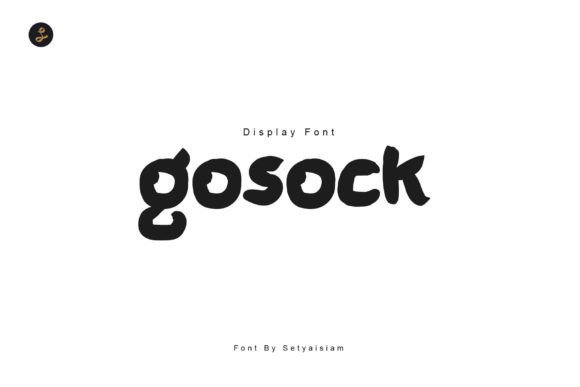
Introducing Gosock Font, the striking display font that captures the essence of handwritten characters, bringing a touch of authenticity and artistry to your designs. Crafted with precision by the skilled hands of setyaisiam, Gosock Font stands out from the crowd with its captivating curves and bold strokes. Let your creativity shine with this remarkable font, designed to elevate your every project.
Unleash the allure of Gosock Font and immerse yourself in a world of boundless possibilities. Whether you're a seasoned designer seeking distinctive typography or a novice seeking to make a statement, Gosock Font is your perfect companion. Its versatile nature seamlessly adapts to a myriad of design scenarios, from captivating logos and eye-catching posters to elegant invitations and dynamic social media graphics.
With Gosock Font at your disposal, ordinary creations transform into extraordinary masterpieces. Its fluid strokes dance across the screen, evoking emotions and captivating audiences. Make a lasting impression with Gosock Font's bold presence, leaving an indelible mark on the minds of your viewers.
Step into the spotlight and let Gosock Font amplify your creative vision. Its bold and confident strokes command attention, while its inherent charm adds a touch of playfulness to your designs. Stand out from the mundane and embrace the extraordinary with Gosock Font, the ultimate choice for those who dare to be different.
Join the ranks of creative visionaries who have harnessed the power of Gosock Font to elevate their work. Experience the joy of seamless design, where ideas flow effortlessly onto the screen, guided by the effortless strokes of this remarkable font. Gosock Font is not just a font; it's an extension of your creativity, a tool that unlocks your true potential.